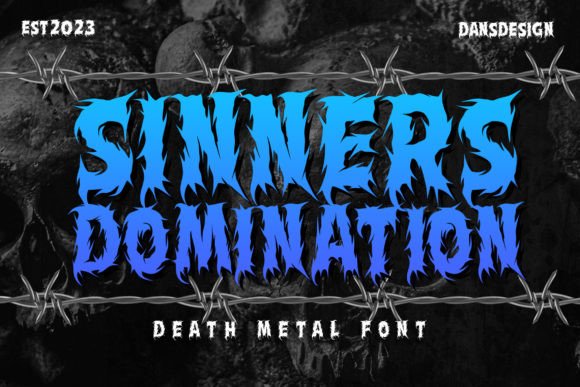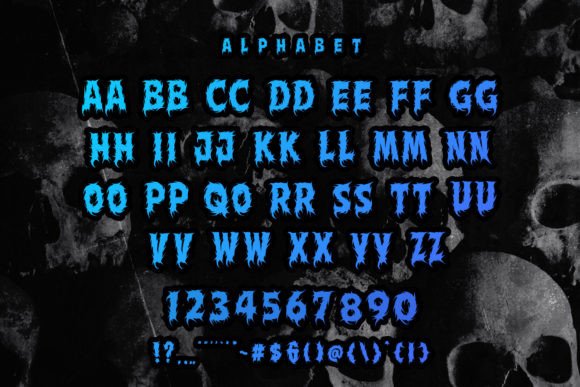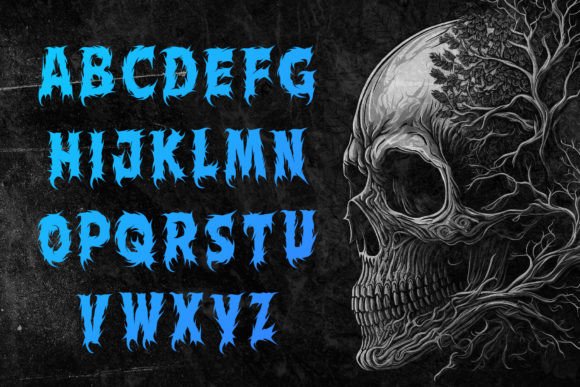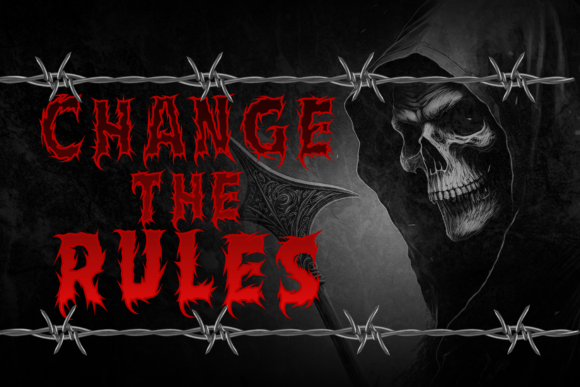
Sinners Domination Font
About the Sinners Domination Font
Add a touch of class to your work with the Sinners Domination Font, a truly exceptional typeface. Sinners Domination Metal Horror Font is a distinct, highly detailed, Horror Metal Font font. It would make a great choice for exquisite Music, Posters, retro-urban designs, tattoo business branding, logos, vintage designs, and more.
Sinners Domination Font Usage Examples
Sinners Domination Font Example